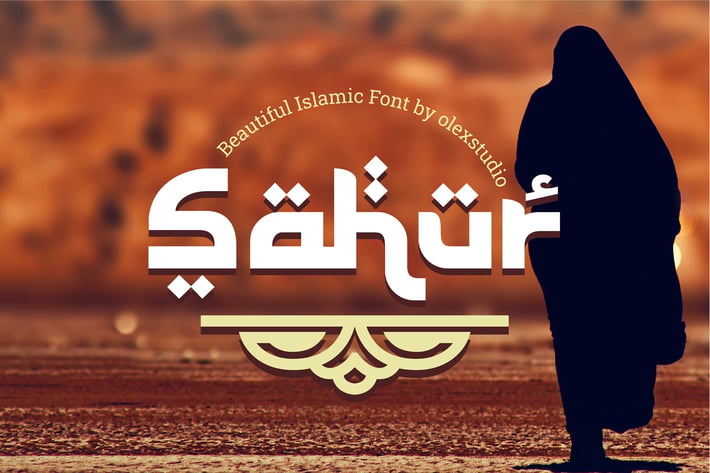
SAHUR - Islamic Font
SAHUR - Islamic Font will look gorgeous on all your designs!
SAHUR - Islamic Font character is a Uppercase, Lowercase, Alternates, includes numbers, punctuation, ligatures and international glyphs. You will receive OTF, TTF files & WEBFONT.